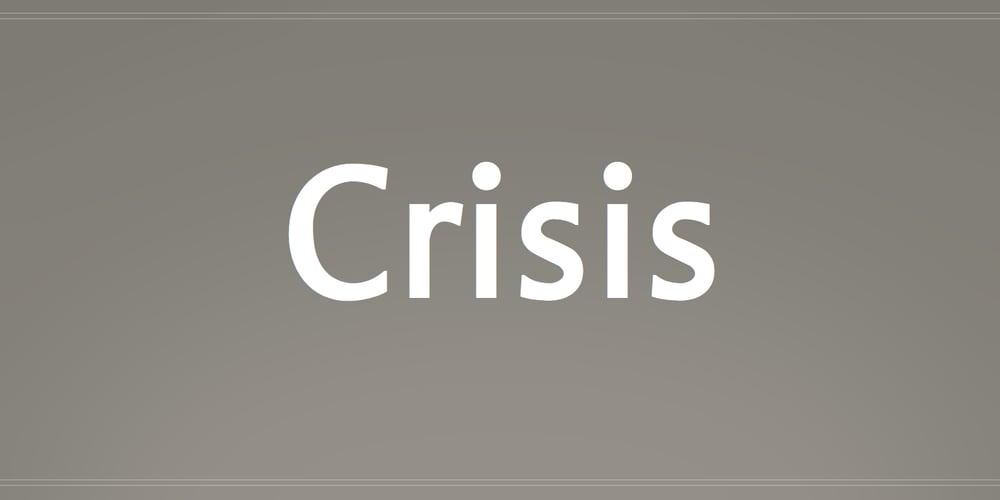
Crisis Font Family was designed by Andreas Stötzner and published by SIAS. Crisis contains 1 styles and family package options. Crisis is a child of the dictatorship of economics. Since time is money the time budget of its production has been rigidly limited. Crisis was designed and generated completely on one single day. The target was to make a useful font while investing nothing more than absolutely indispensable. The component-based glyph construction scheme of another font has been utilized, further detailing work has been strictly limited. Due to those restrictions some letters have rather unusual shapes. This straightforward and contemporary sans (320 glyphs) is of compact proportions and very legible even when set in small sizes. In printing you get more text on one page and thus save up to 30% of paper.